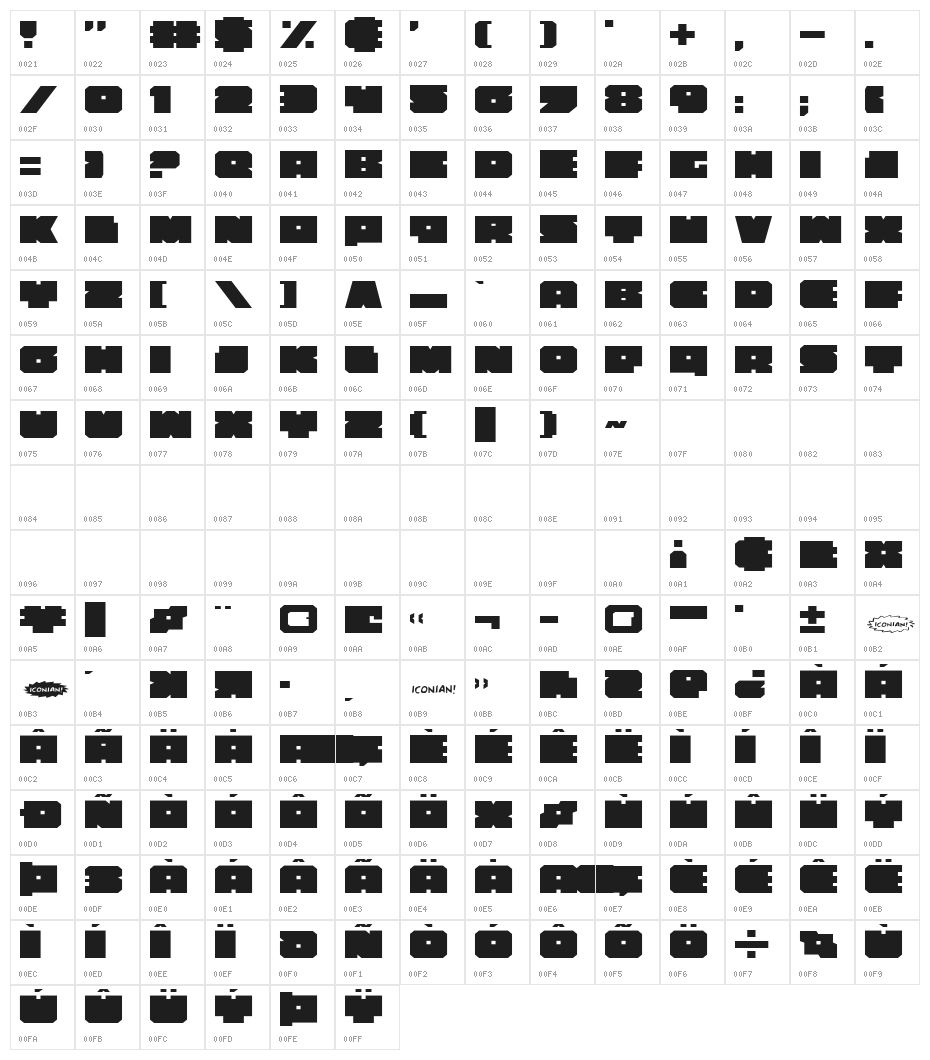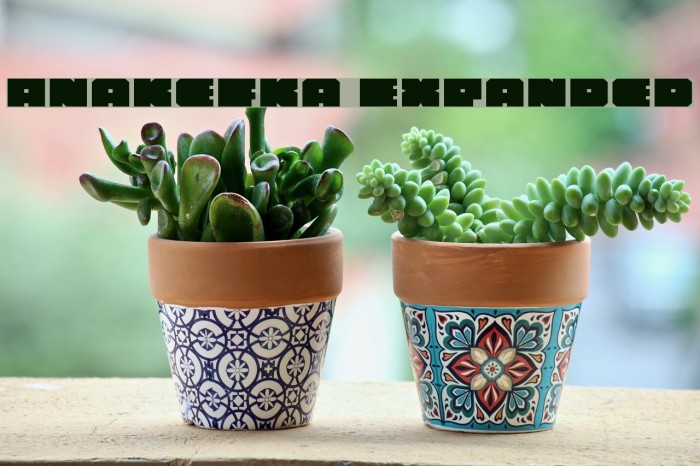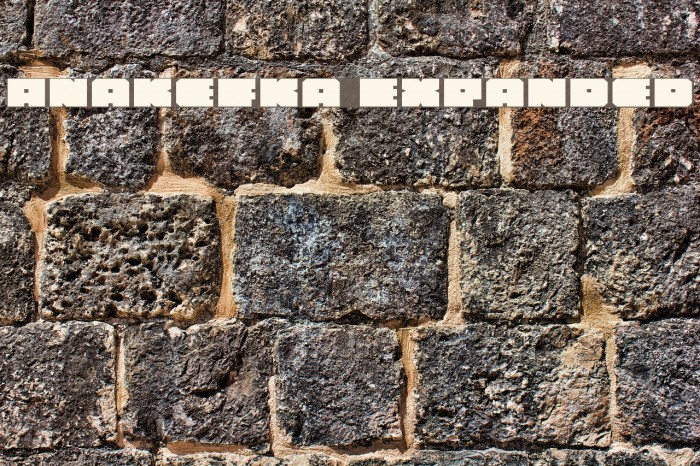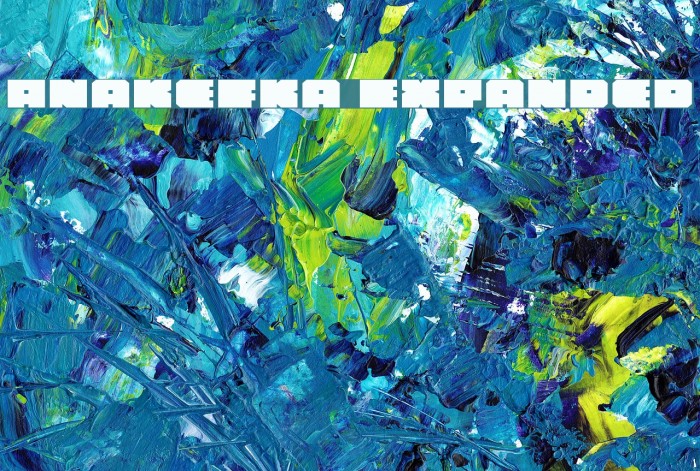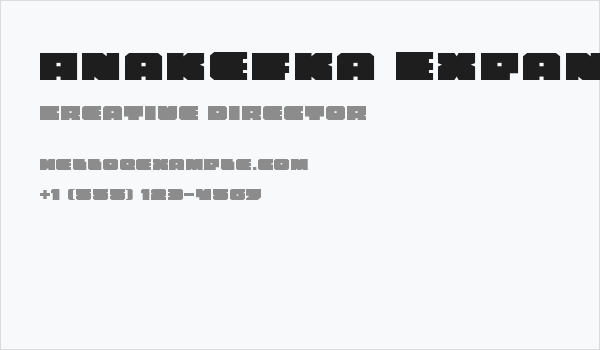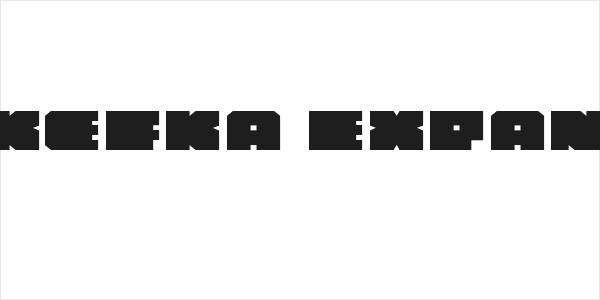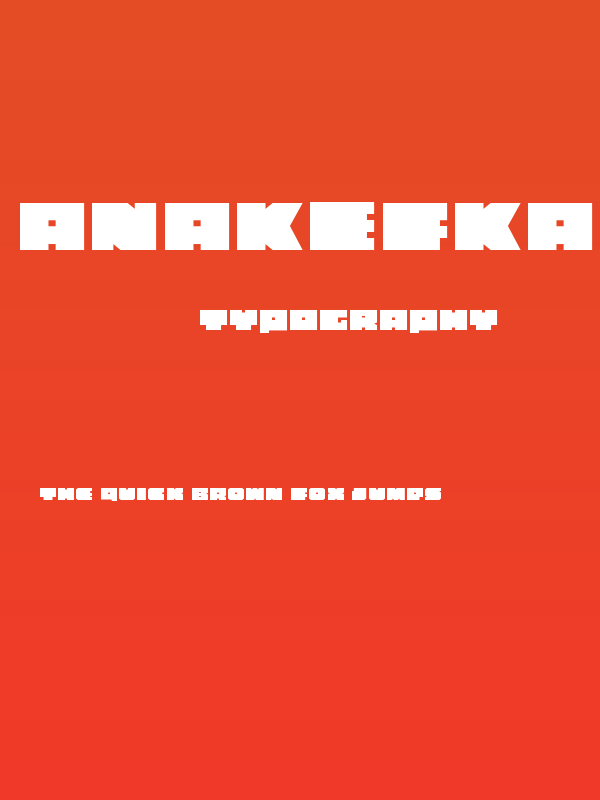
Anakefka Expanded Font
Anakefka Expanded Description
This font features a bold and expansive design, characterized by its blocky and geometric letterforms. The characters are uniformly wide, creating a strong and impactful presence. The font's style is distinctly modern with a futuristic edge, making it suitable for attention-grabbing headlines and display purposes. The uppercase and lowercase letters maintain consistent width, contributing to a cohesive visual appearance. The numerals and special characters follow the same bold and geometric aesthetic, ensuring uniformity across all glyphs. The font's overall design is striking and memorable, ideal for projects that require a bold statement.
Proposed ProjectsIdeal for headlines, posters, logos, and branding materials that require a bold and modern look.